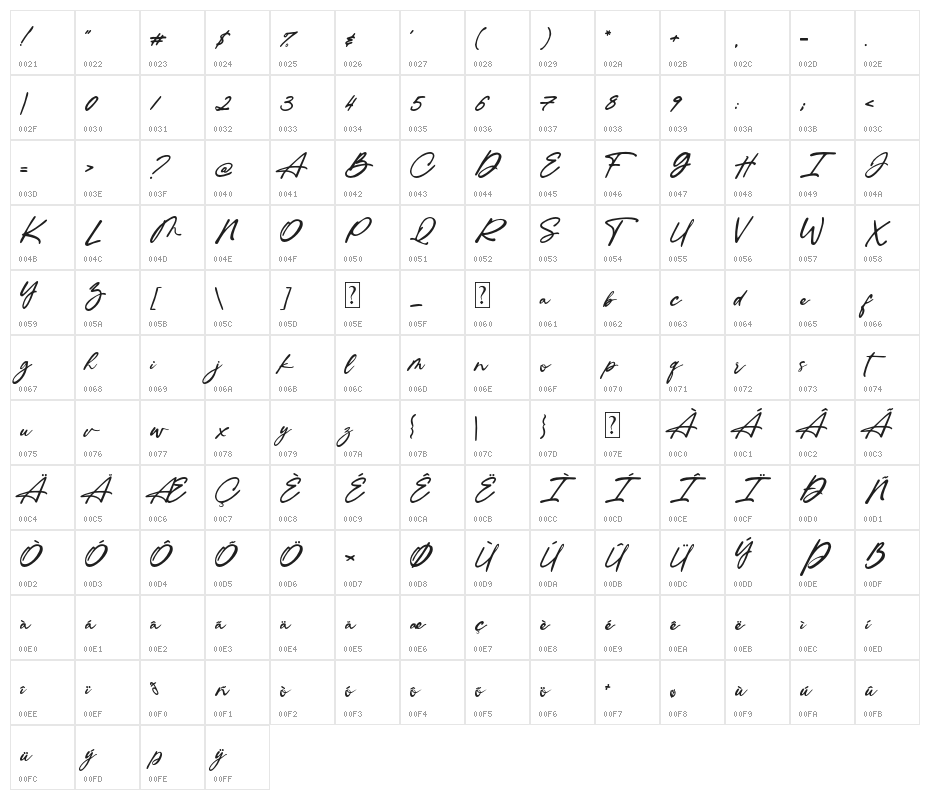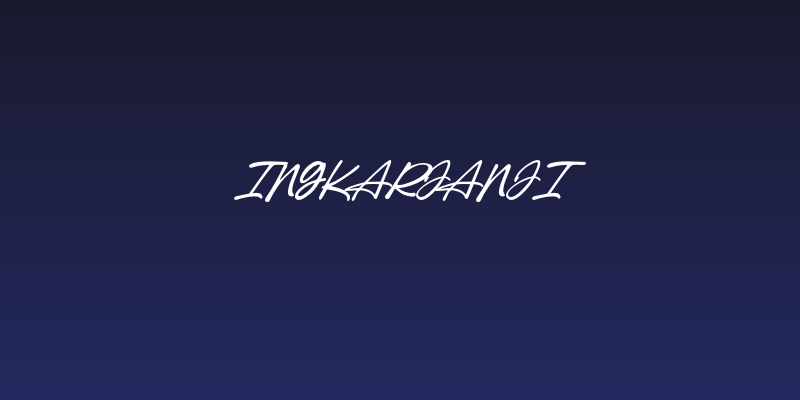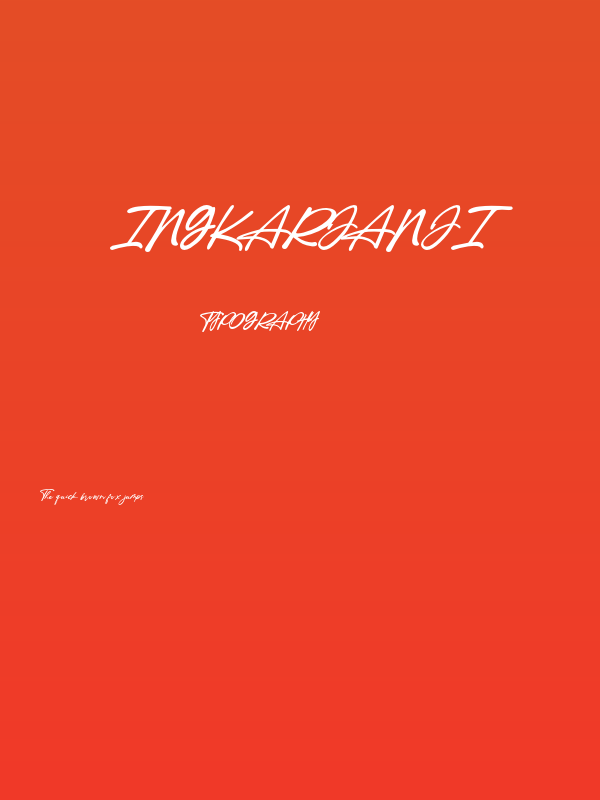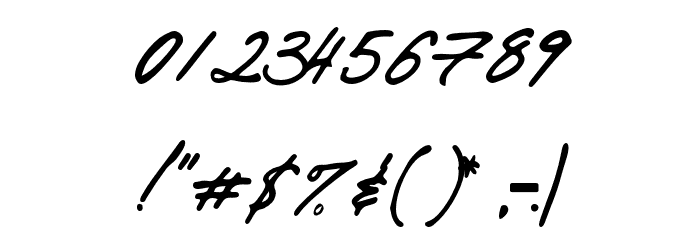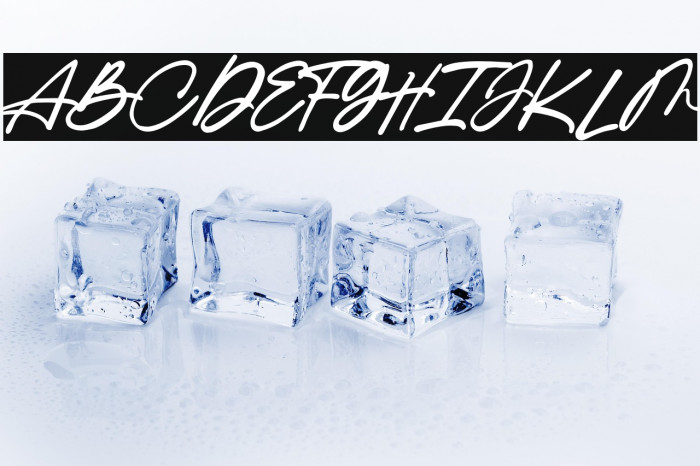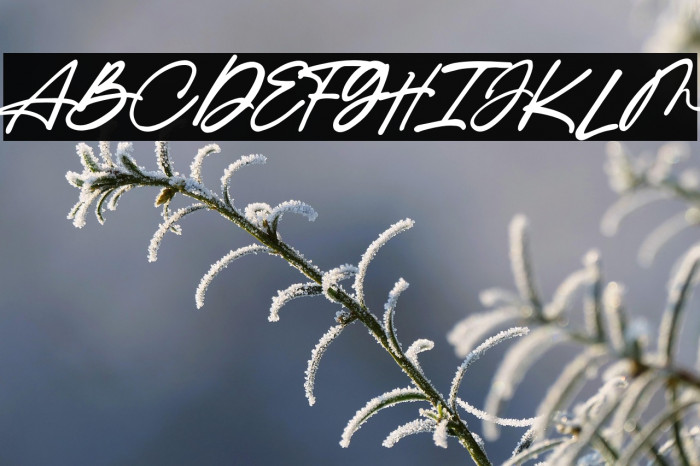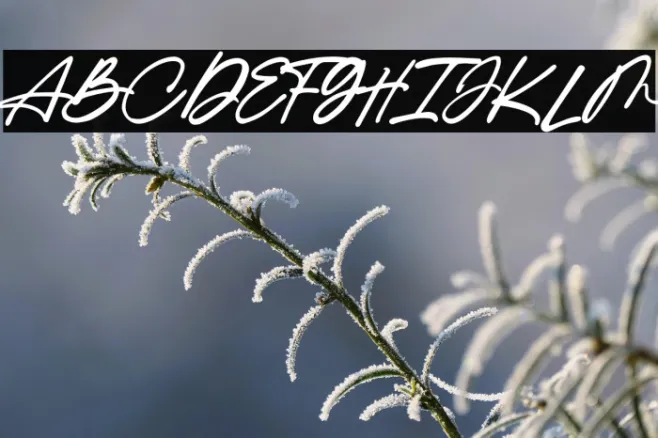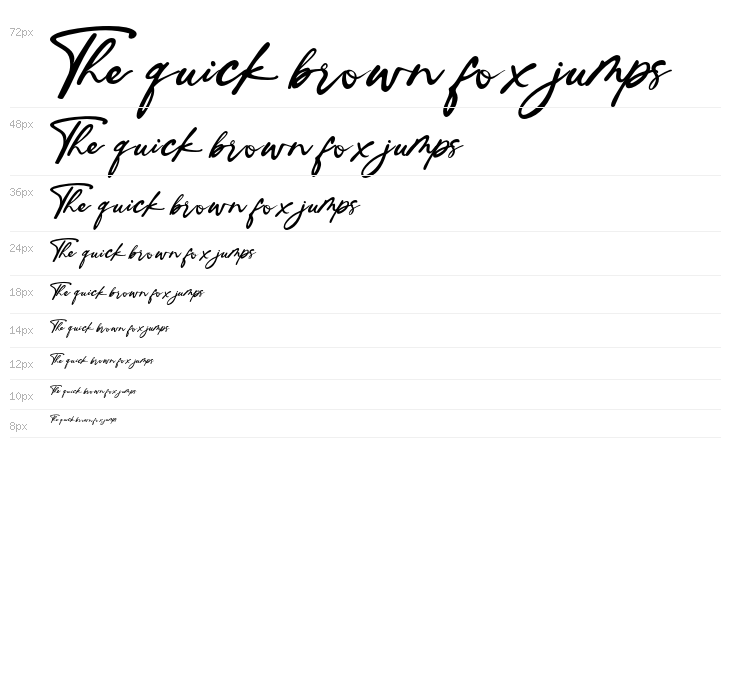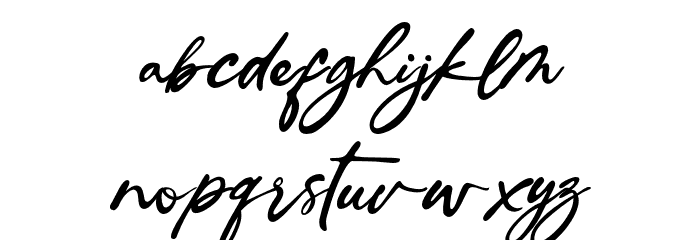
IngkarJanji Font
IngkarJanji Description
This font features a flowing, cursive script style with a handwritten appearance. The letters are connected, creating a seamless and elegant look. The uppercase characters are bold and expressive, while the lowercase letters maintain a consistent fluidity. The numerals are distinct yet harmonize well with the overall script style. Special characters are integrated smoothly, enhancing the font's versatility. This font exudes a sense of sophistication and personal touch, making it ideal for creative and expressive design projects.
| Use Case | Logos, Invitations, Artistic designs |
| Proposed Projects | Ideal for wedding invitations, greeting cards, personal branding, and artistic projects. |